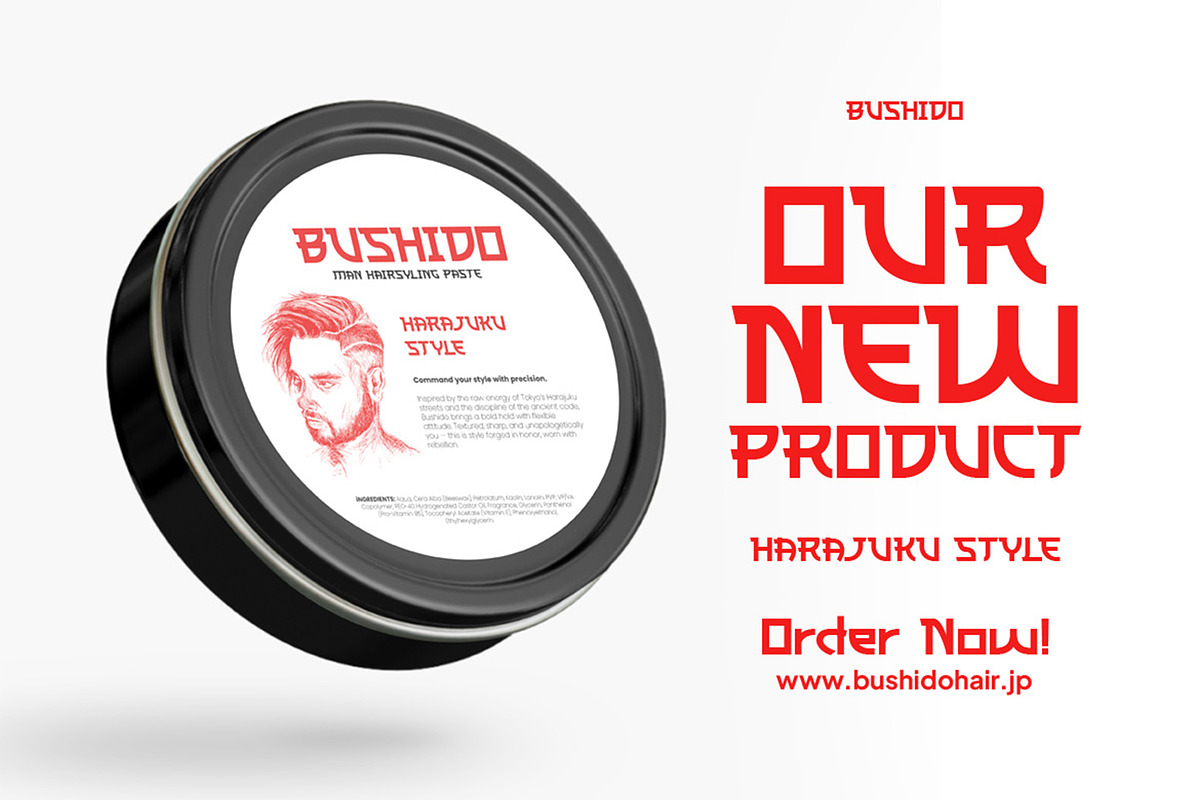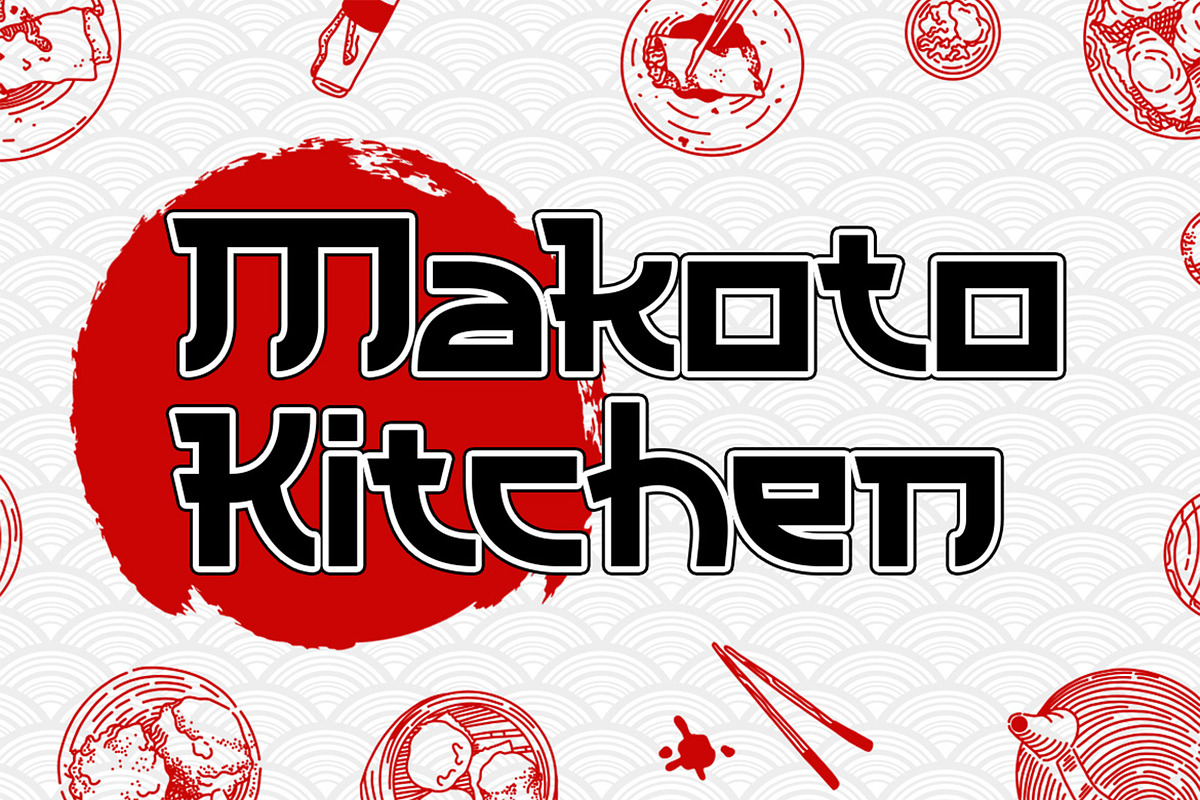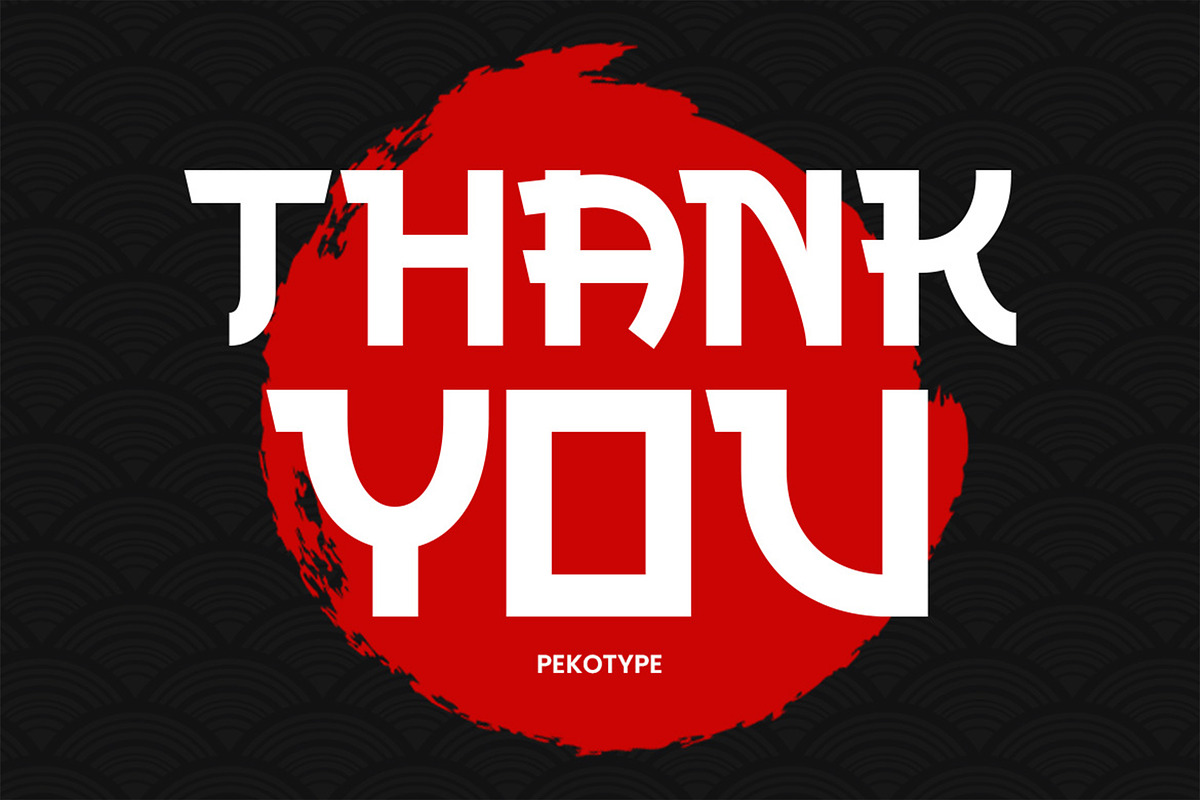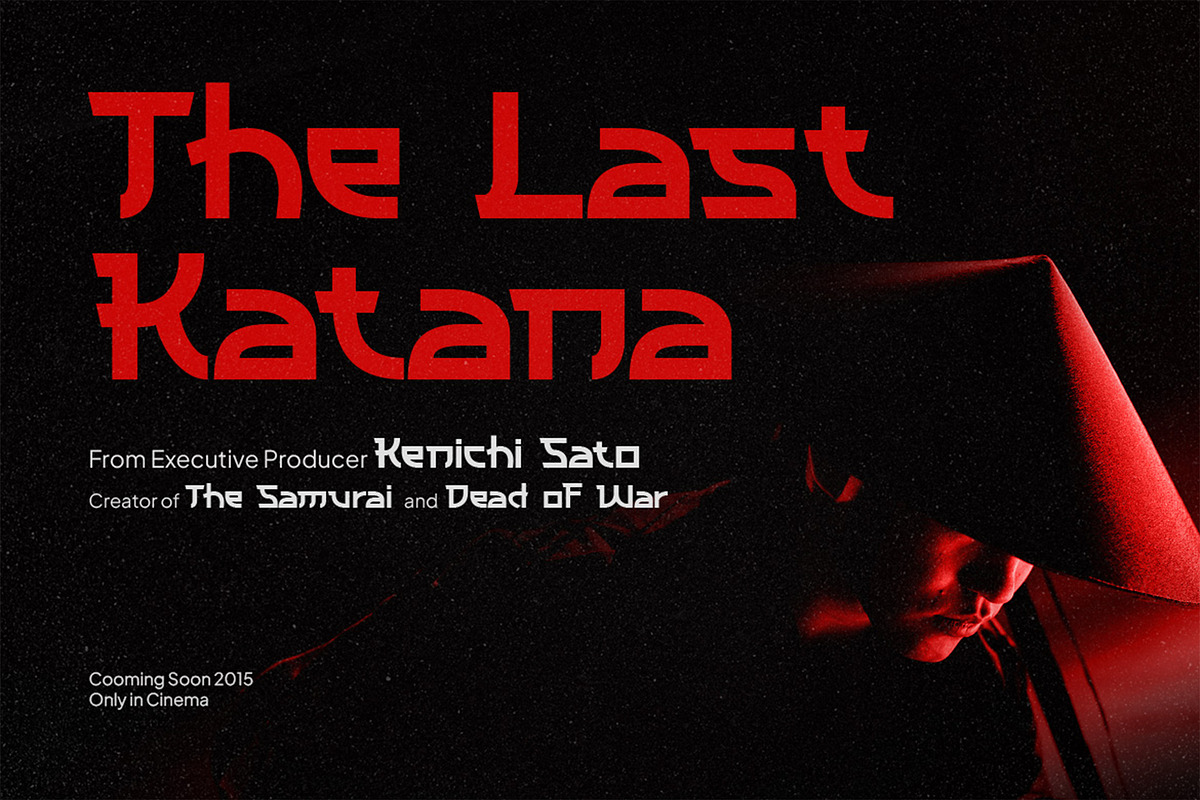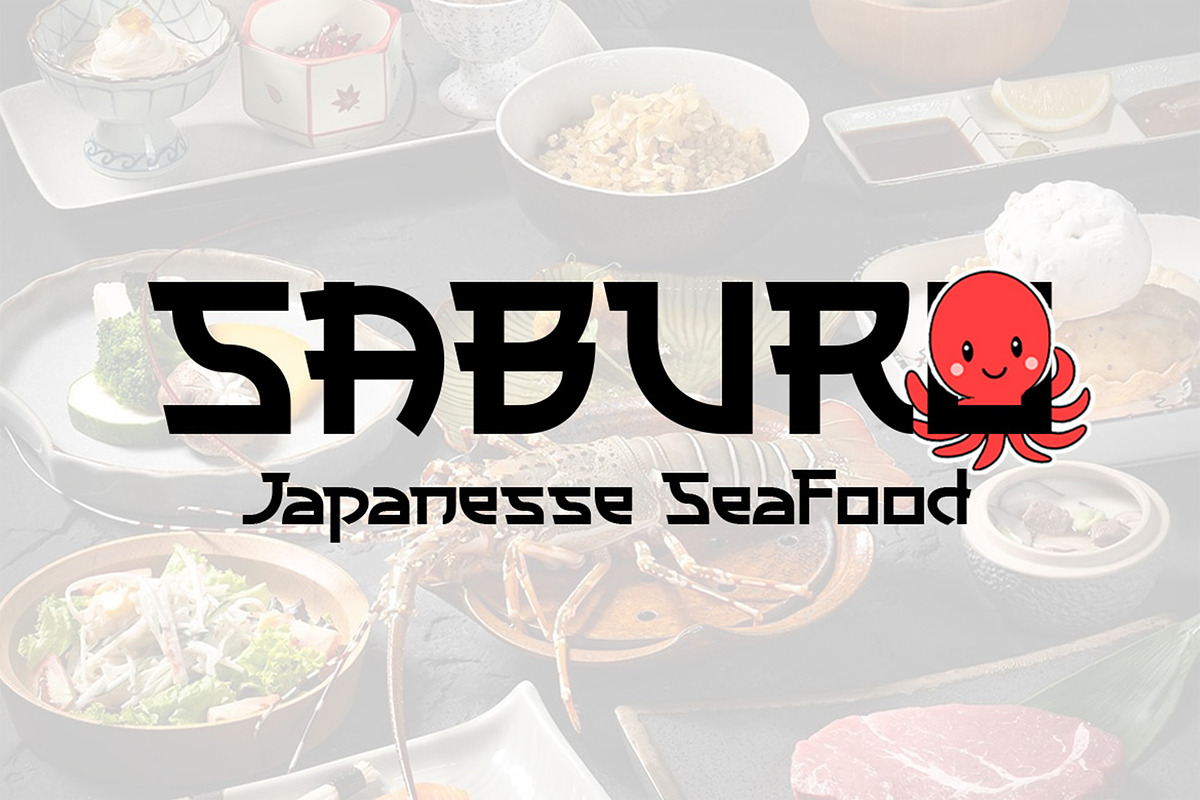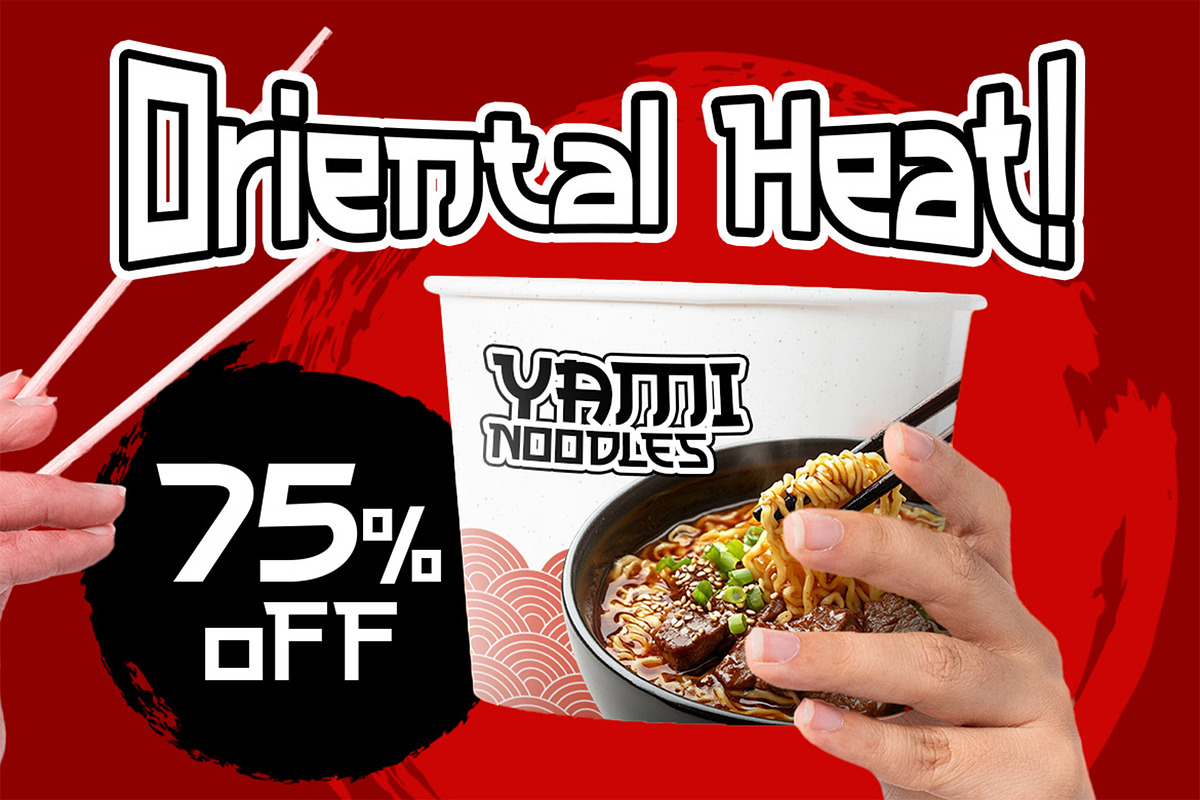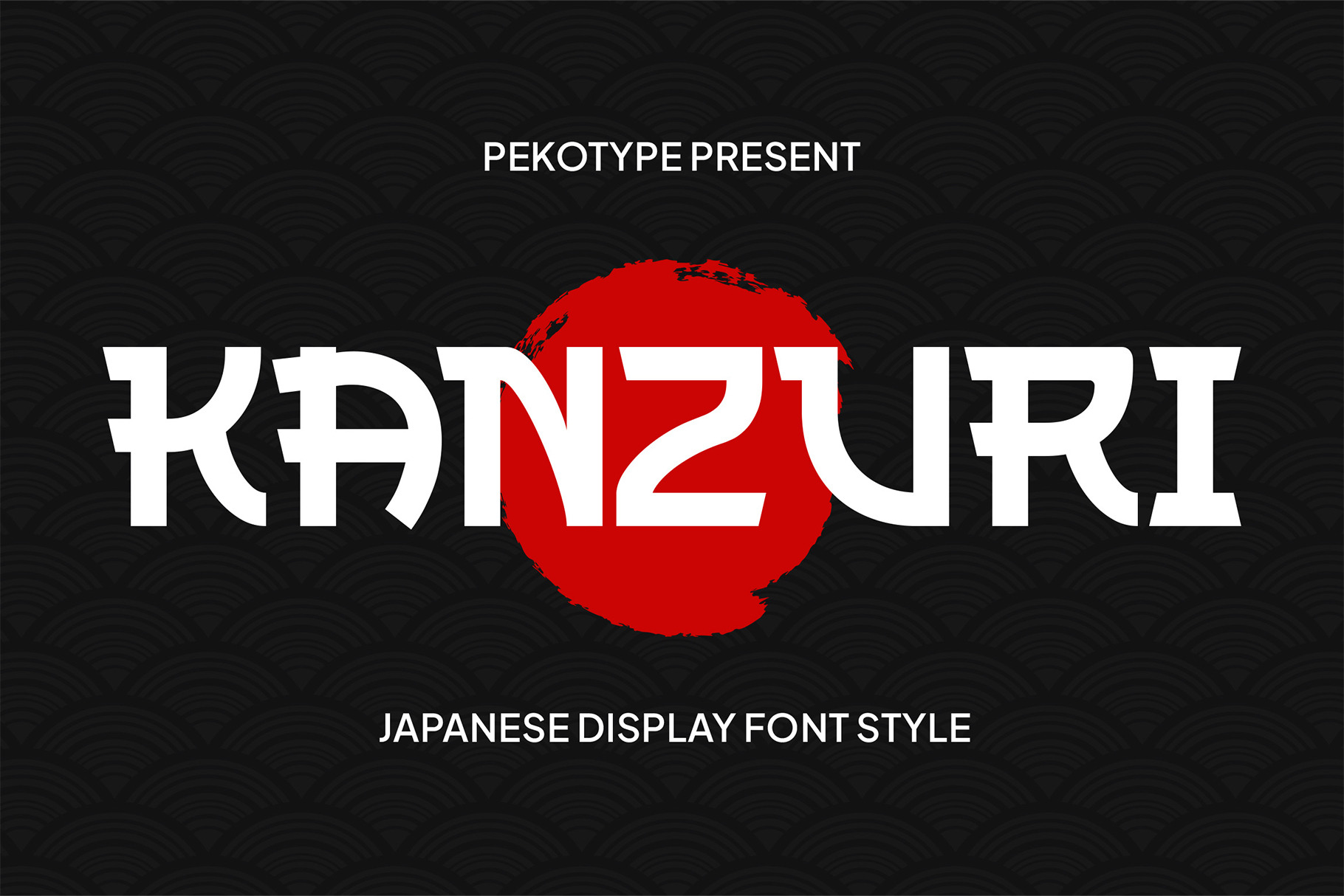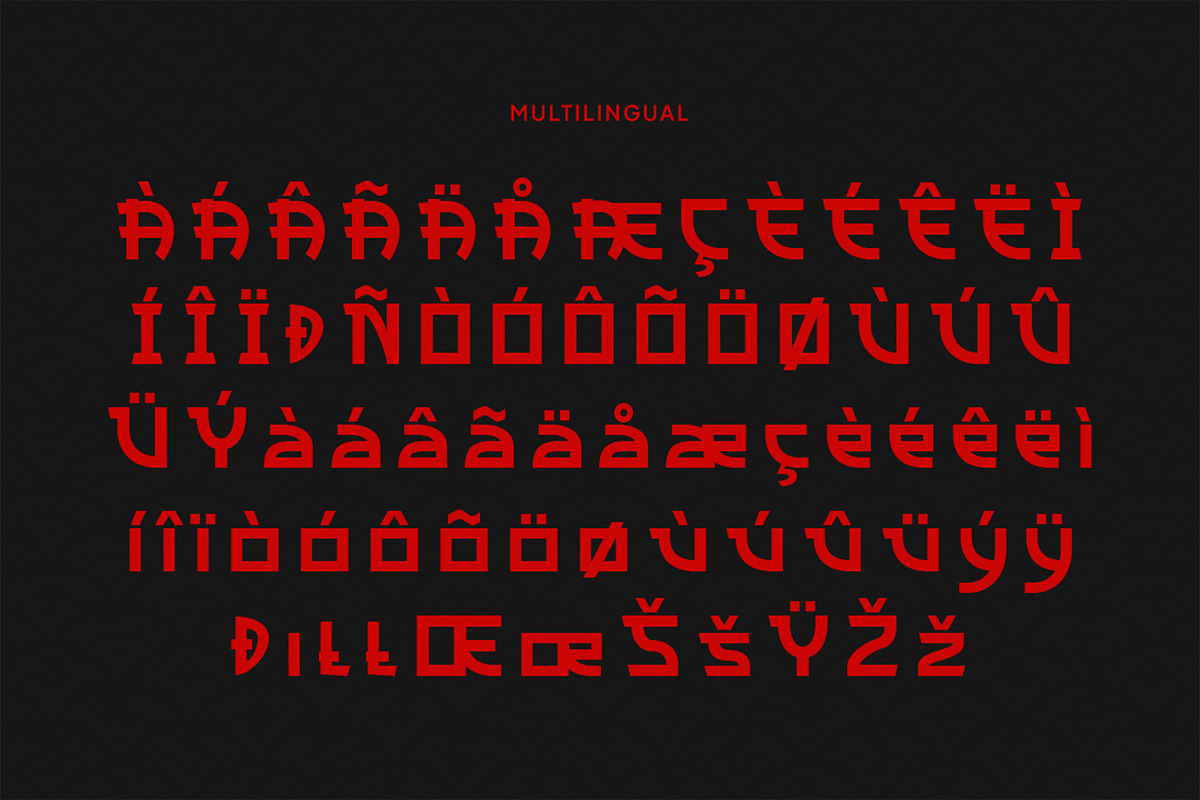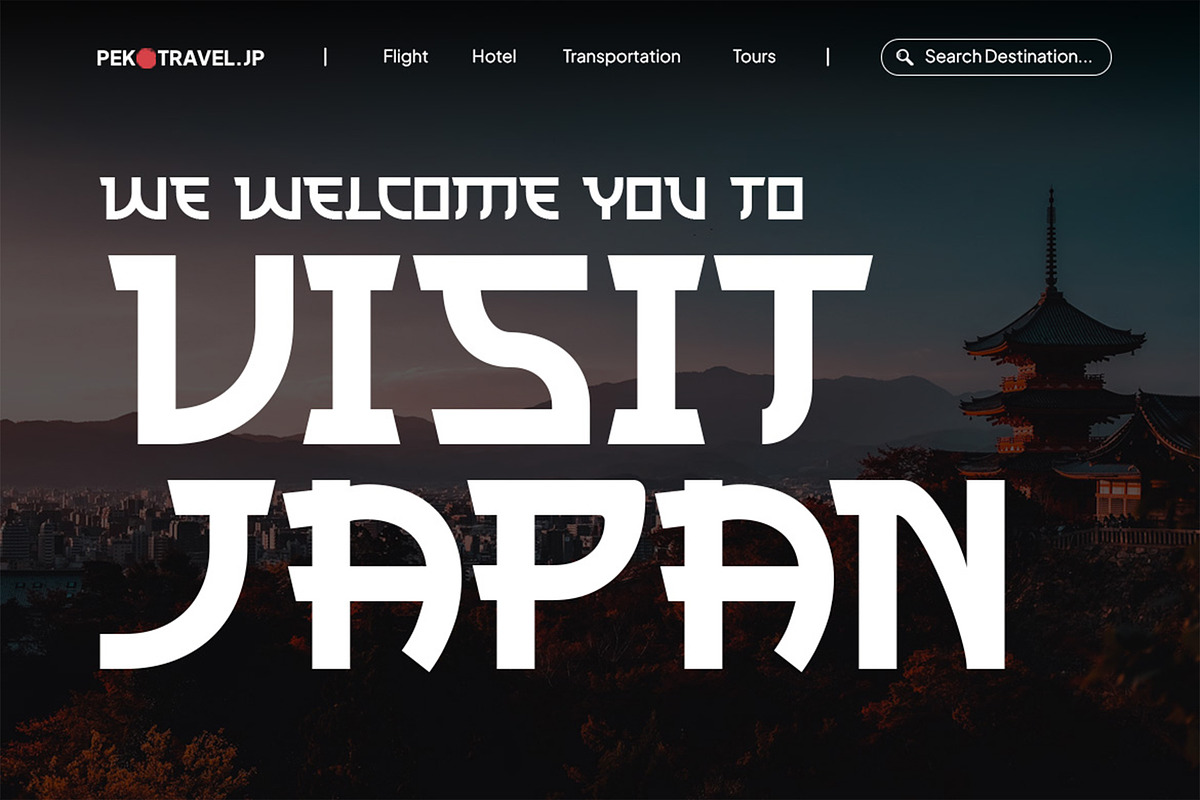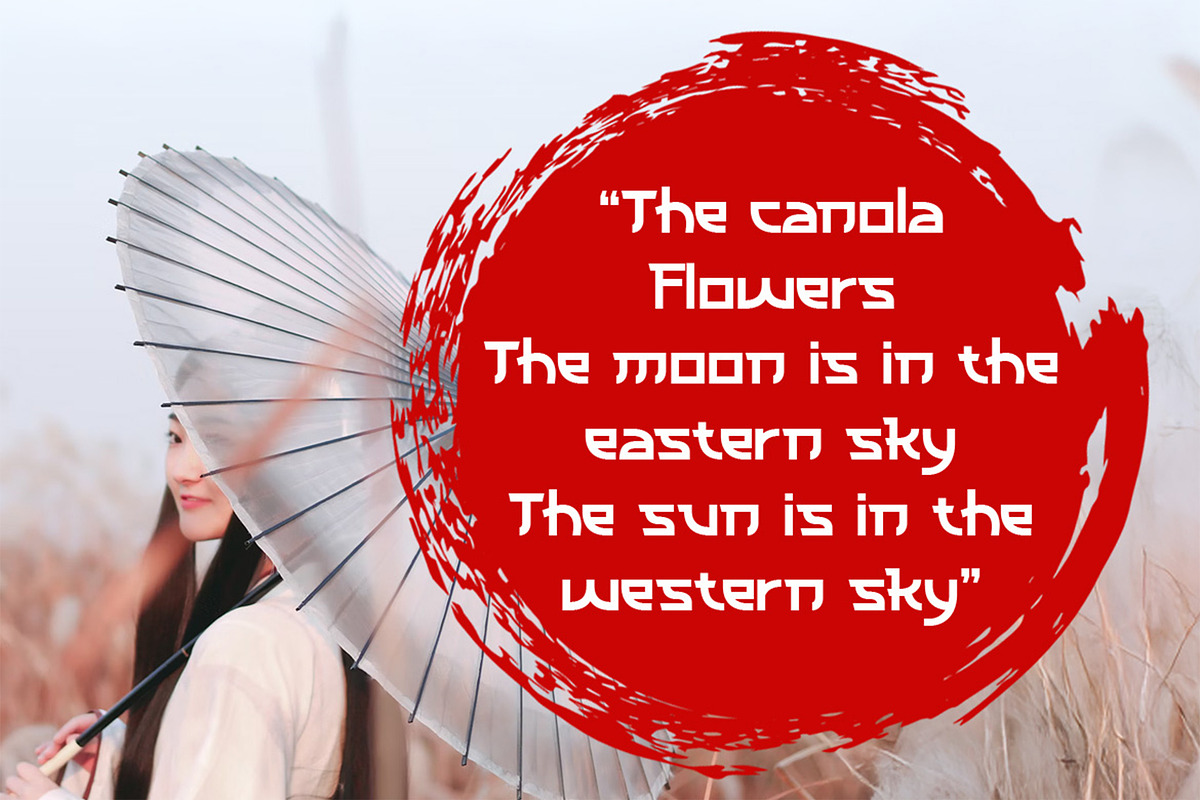
Kanzuri - Japanese Font
KANZURI — Bold Japanese-Inspired Font for Striking Designs
Step into the bold elegance of the East with KANZURI, a modern typeface infused with strong Japanese vibes. Inspired by traditional kanji strokes yet crafted with a clean, contemporary twist, KANZURI strikes the perfect balance between cultural heritage and modern design.
This font features bold, geometric forms that echo the visual language of Japanese signage, samurai aesthetics, and sushi bar branding. Its sharp angles and solid structure make it ideal for branding, logos, product packaging, film titles, and any creative project that calls for a touch of Japan with a powerful, modern edge.
KANZURI is not just a font — it’s a statement of style.